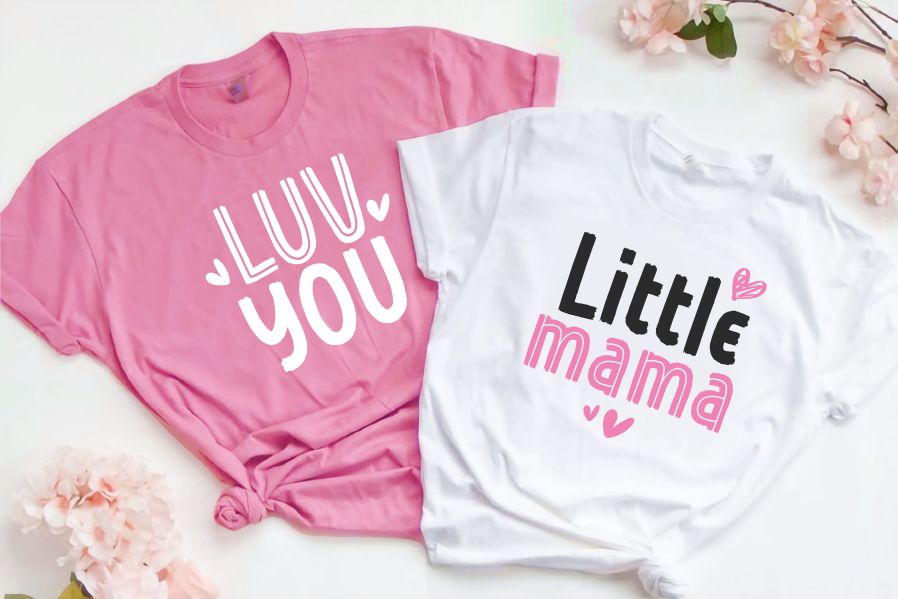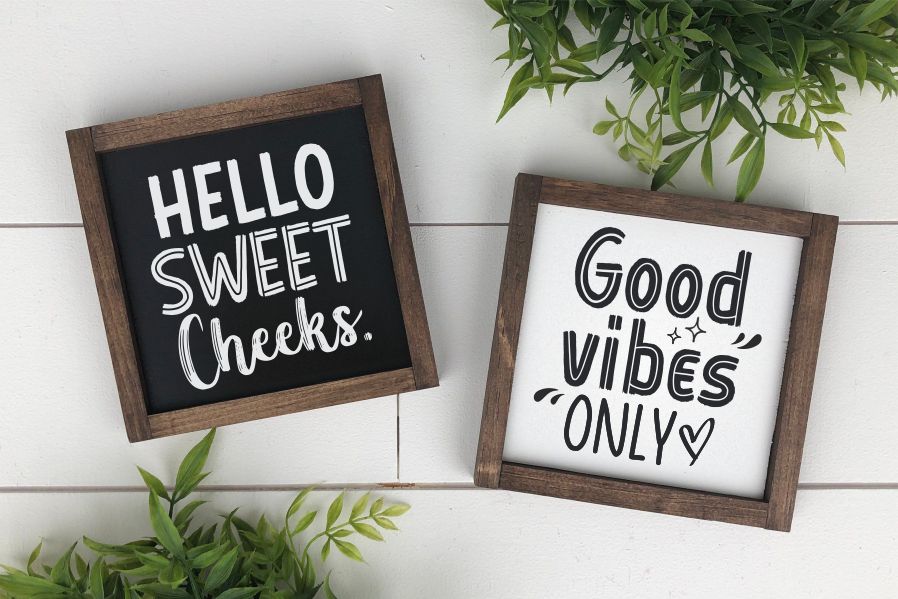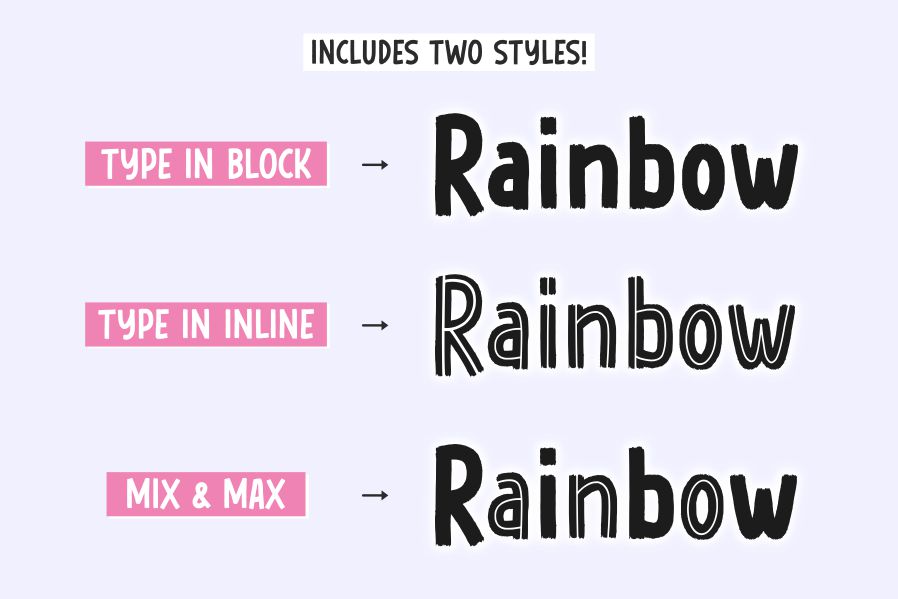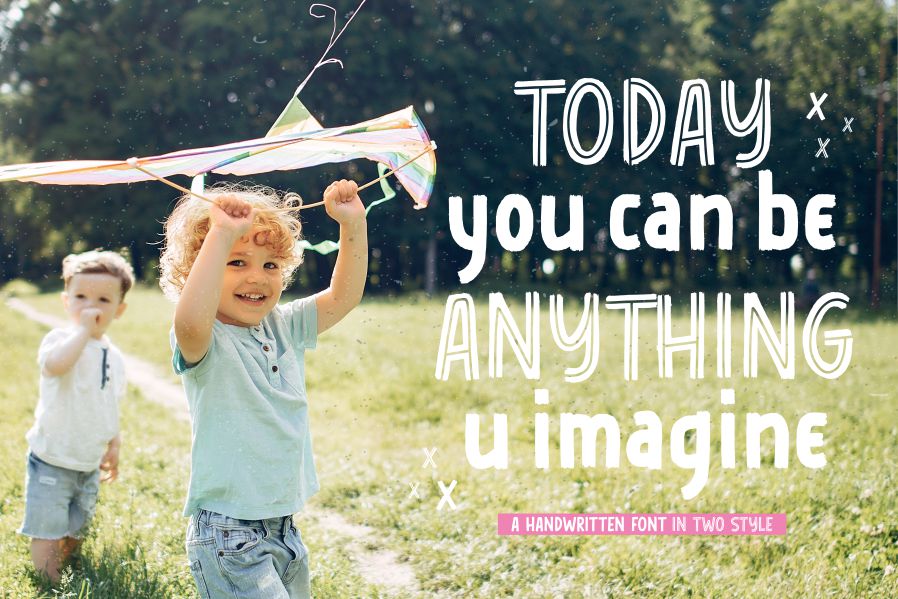
Children Memories Font
Children Memories Display Font
It’s a fun and authentic brush display font. This font is designed to look like brush strokes from an artist’s canvas, perfect for kids’ activities or school-related projects. Children Memories will evoke joy, authenticity, and fond childhood memories.